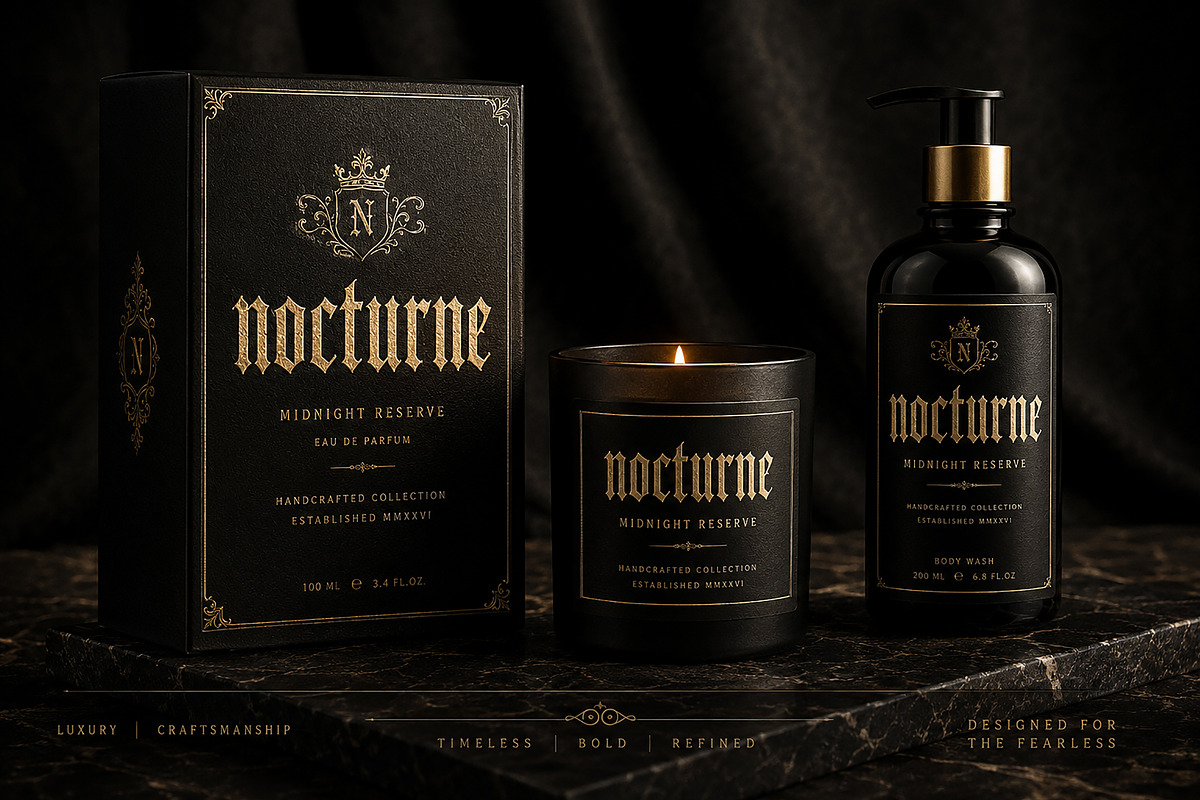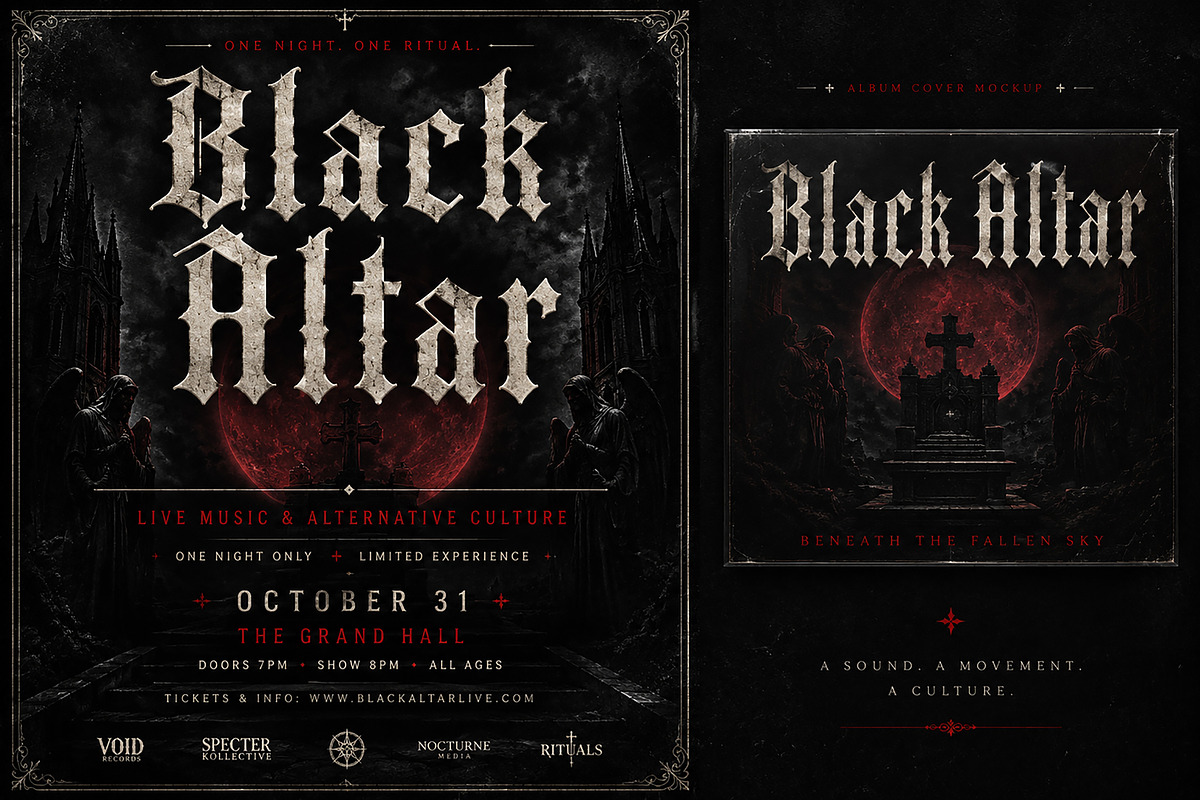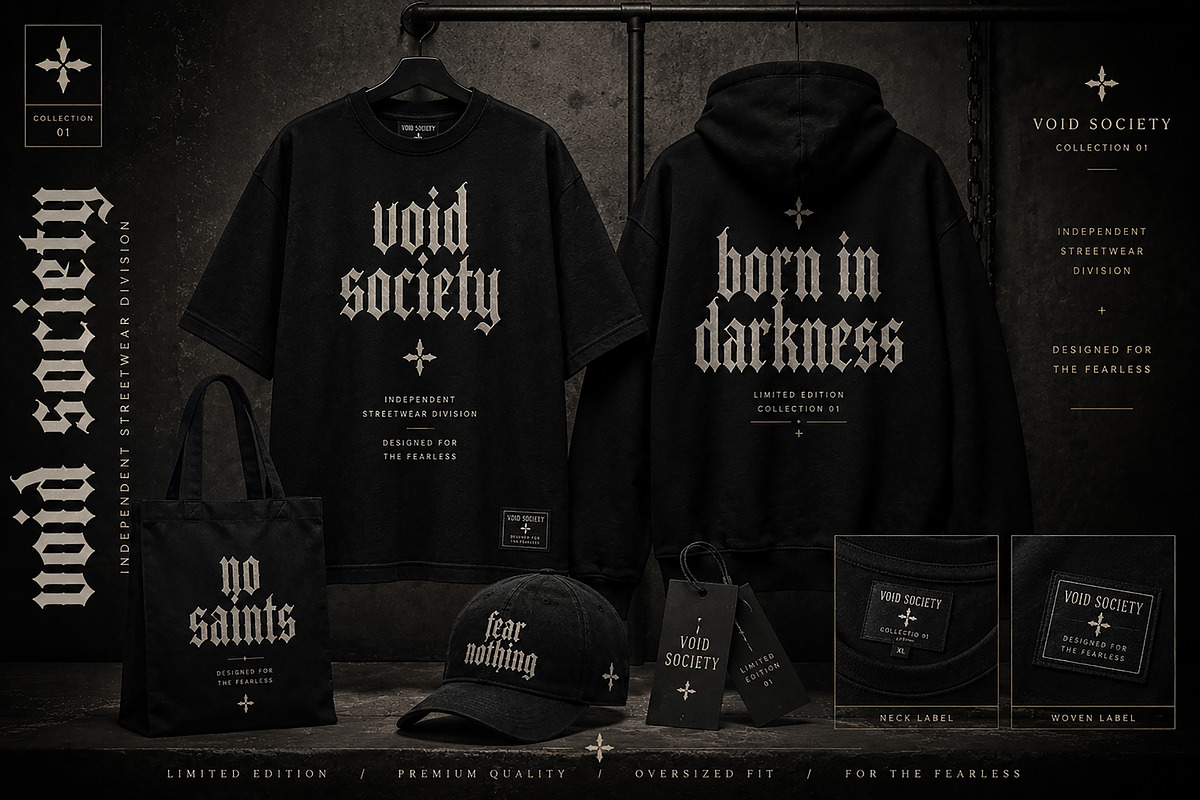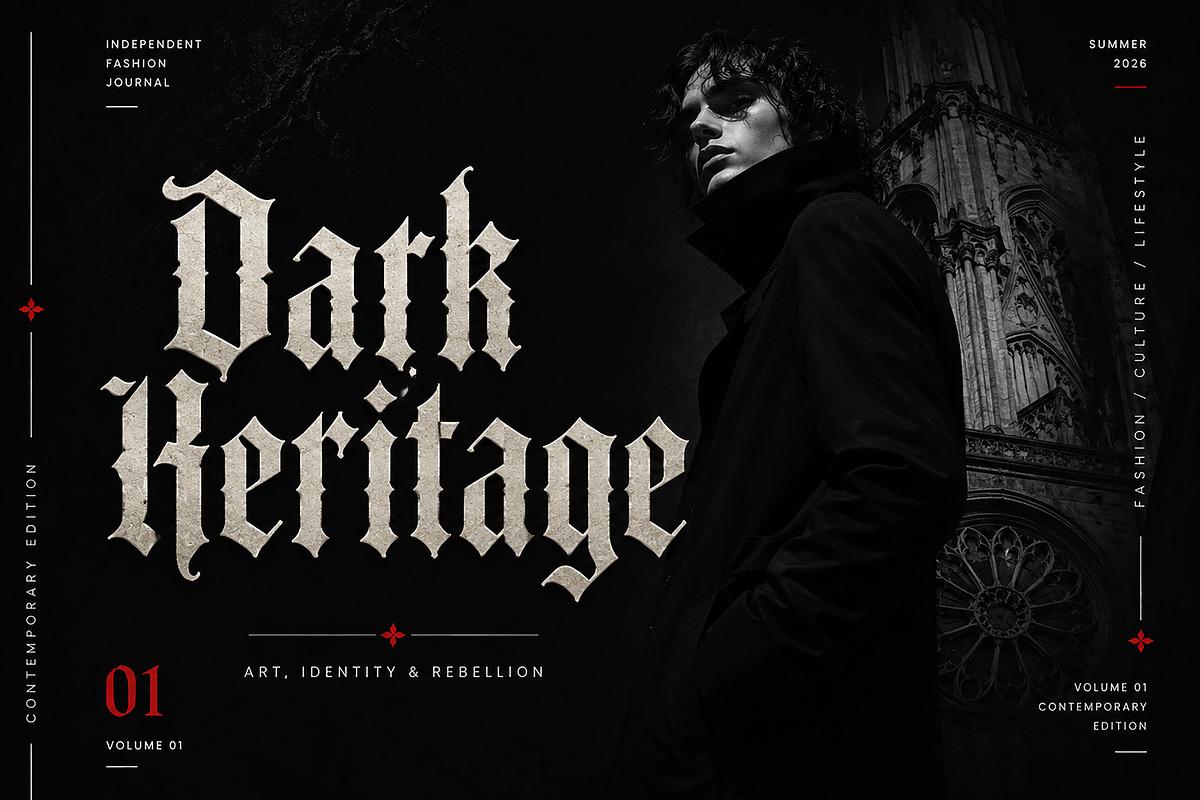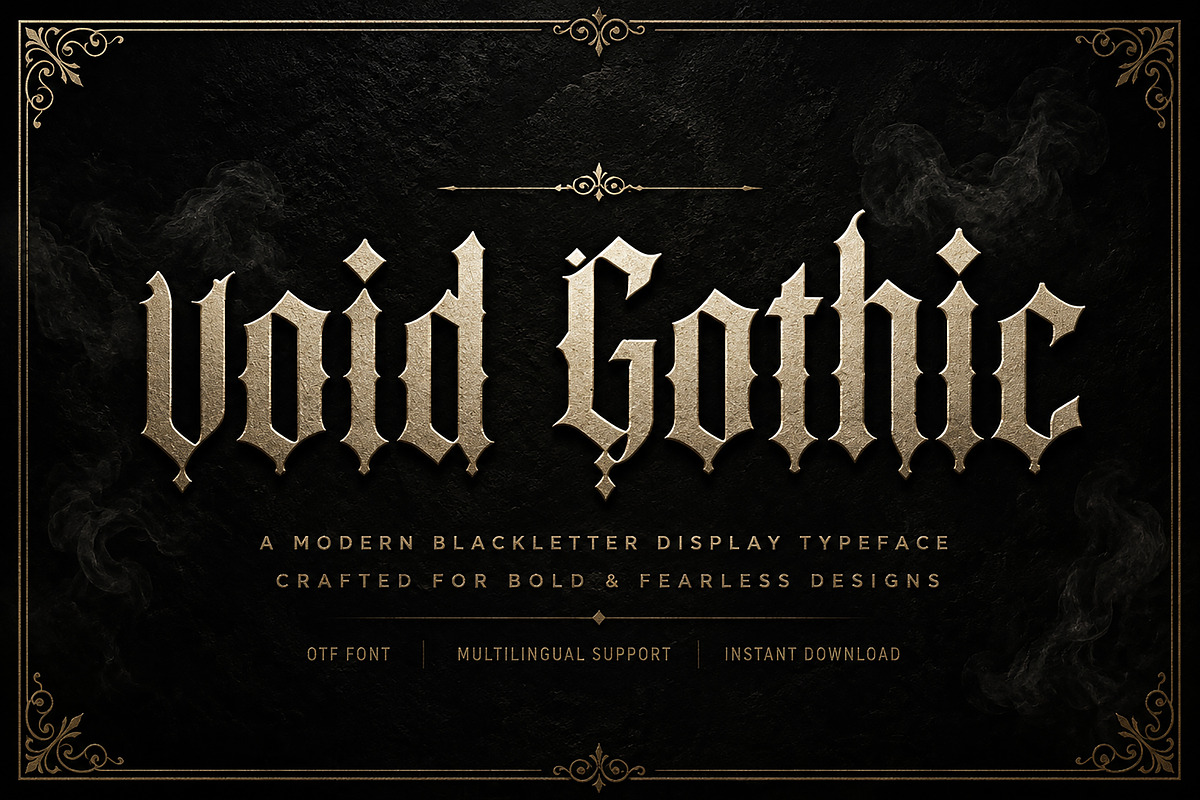
Void Gothic
Void Gothic is a bold and dramatic blackletter display font that blends timeless Gothic influences with a clean, modern edge. Designed for creators who want to make a strong visual impact, this typeface delivers sharp details, elegant structure, and a premium aesthetic.
Whether you're designing luxury branding, fashion editorials, music artwork, packaging, merchandise, or striking posters, Void Gothic adds a powerful and unforgettable personality to every project.
Its carefully crafted letterforms are perfect for high-end creative work where bold typography takes center stage.
Luxury Branding
Fashion Editorials
Album Covers
Concert & Festival Posters
Clothing & Streetwear
Premium Packaging
Perfume & Cosmetic Branding
Tattoo Studio Branding
Merchandise Design
Gaming Titles
YouTube Thumbnails
Creative Headlines
Style: Blackletter Display